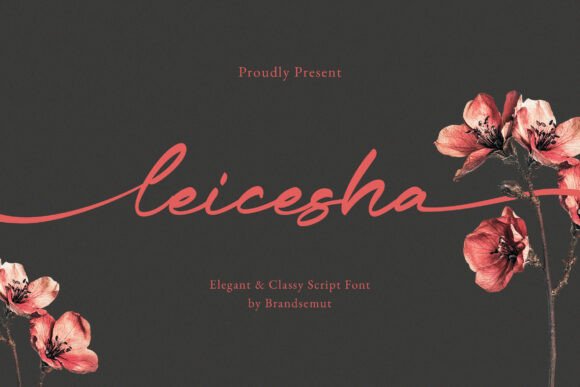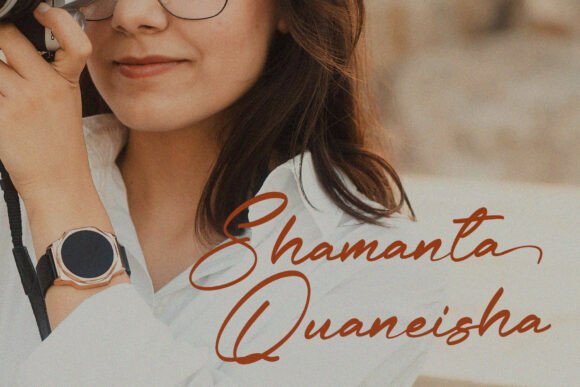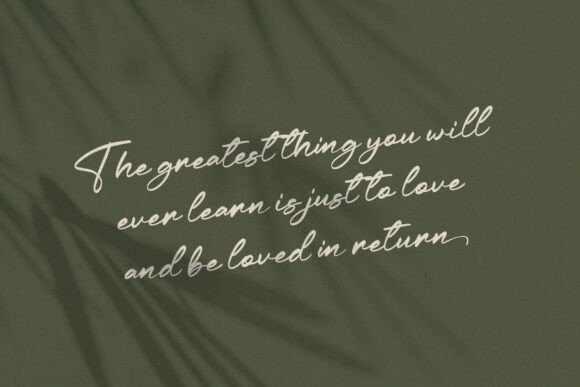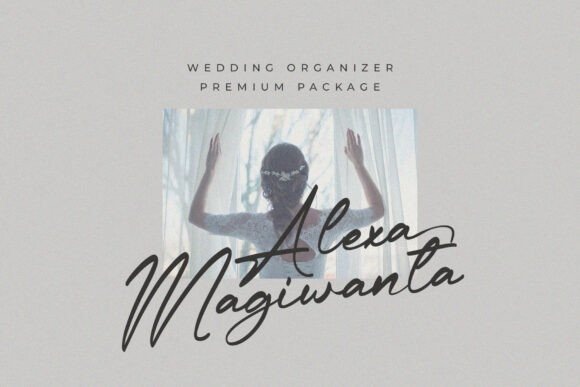
Leicesha Font: Elegant Script for Wedding Invitations & Branding
About the Leicesha Font
Add a touch of class to your work with the Leicesha Font, a truly exceptional typeface. Introducing the new Leicesha Elegant & Classy Script Font is a luxury and stylish handwritten script that you can use to perfect your design.
You will get a full set of lowercase and uppercase letters, multilingual, numerals, and punctuation.
Leicesha’s elegant and flowing forms make it ideal for headlines, logos, short quotes, and invitations where its luxurious feel can shine. It works exceptionally well in branding for high-end products or services, adding a touch of sophistication to packaging and marketing materials. However, its delicate nature makes it unsuitable for body text or UI elements; the script’s intricate details can become illegible at smaller sizes.
For optimal impact, pair Leicesha with a clean sans-serif like Montserrat for a modern contrast or a classic serif such as Garamond for a more traditional feel. A simple geometric sans-serif could also create a striking balance. These pairings allow Leicesha’s graceful script to take center stage without overwhelming the design.
Leicesha projects a sophisticated and refined personality, best suited for brands that value elegance and a touch of old-world charm. Avoid using it in contexts requiring strong readability or a modern, minimalist aesthetic.